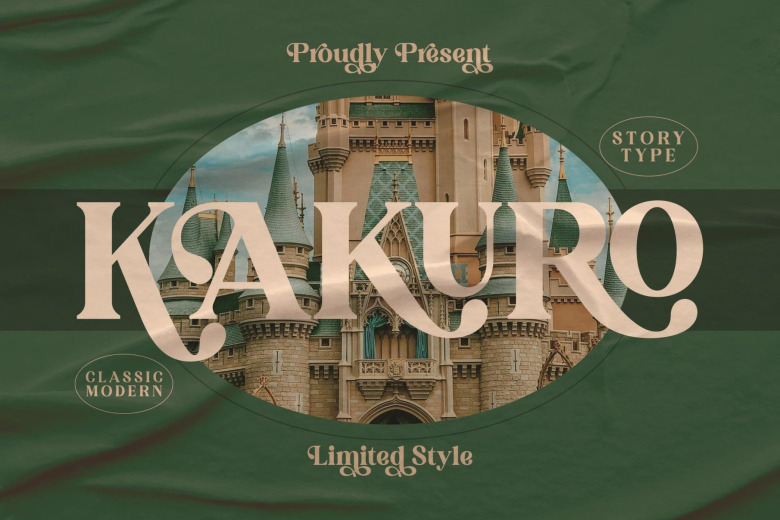
Kakuro Font
Kakuro Font is a bold, stylish and thick lettered serif typeface. This font is PUA encoded which means you can access all of the glyphs and swashes with ease!